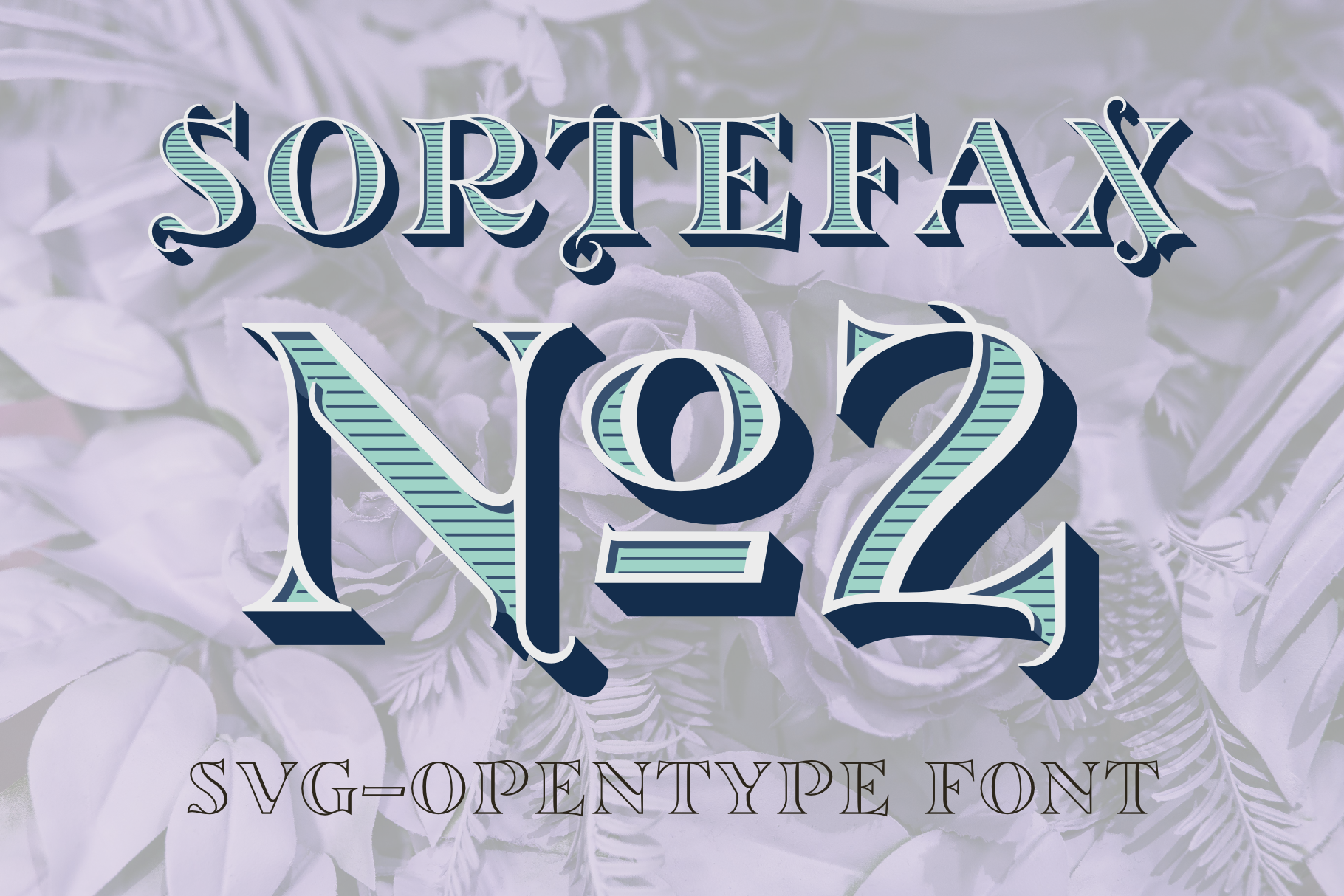
Sortefax No2 - SVG color font
SVG-OpenType color fonts Sortefax №2: Almond, Azure, Asparagus and Turquoise with:
- decorative UPPERCASE
- simple lowercase
- stylistic Set 01 (decorative variants)
diacritics
TIP: Play with UPPeRCaSe and lowercAsE and have fun!!